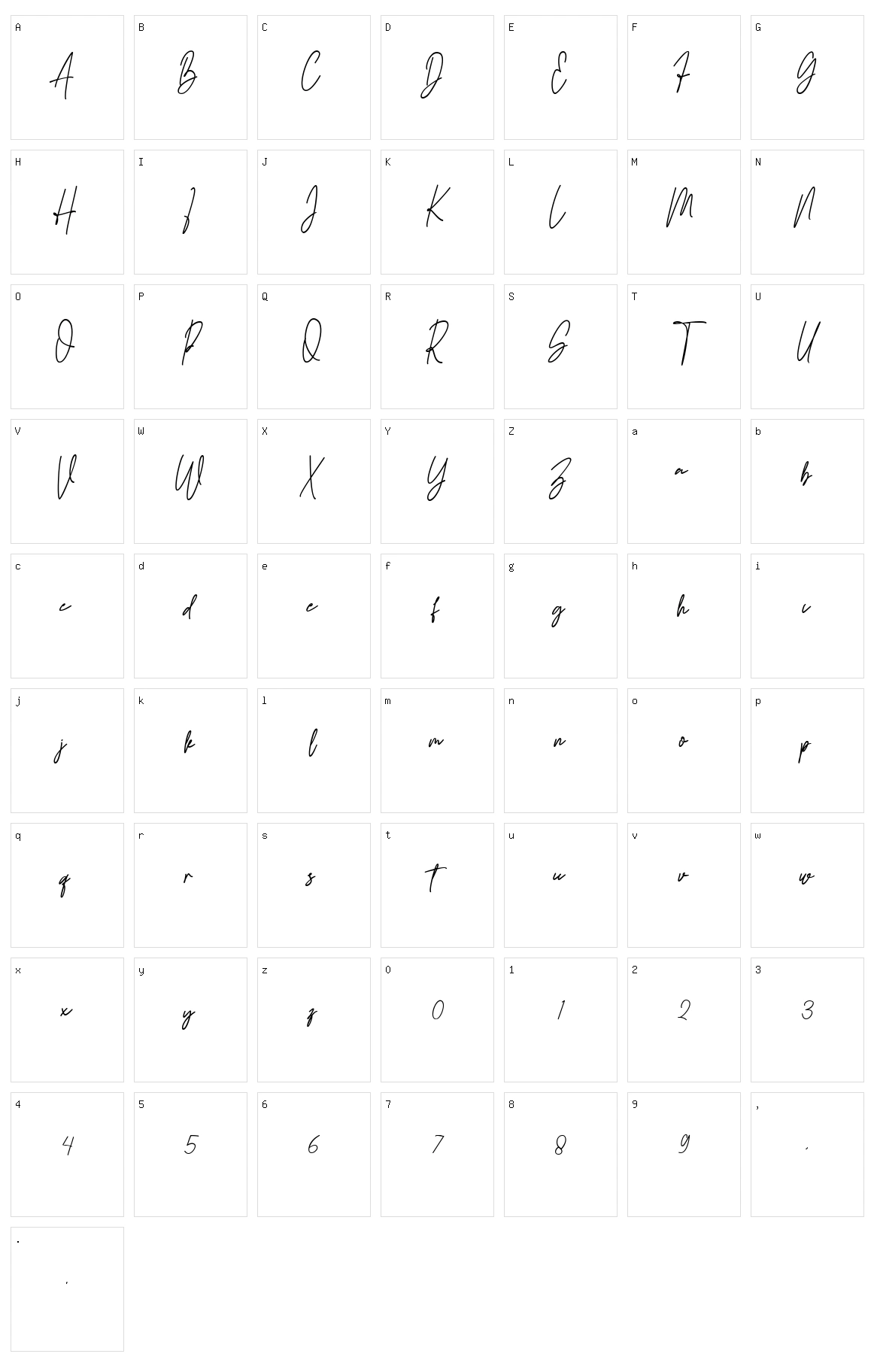
The free font Madion is carefully designed by Bale, showcasing a thoughtful balance of creativity and usability and falls under the Script font style. When you download the ZIP file, it contains only 29.13 KB of font files, making it lightweight and quick to download. Please review the license details below to understand permitted usage and distribution rights. If license information is not available, we recommend using this font for personal projects only or contacting the author directly for commercial usage permissions.